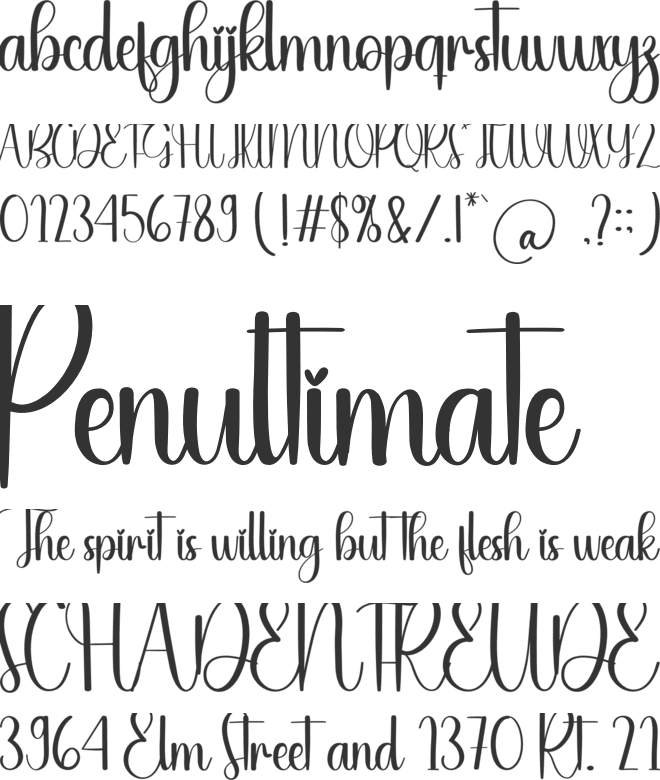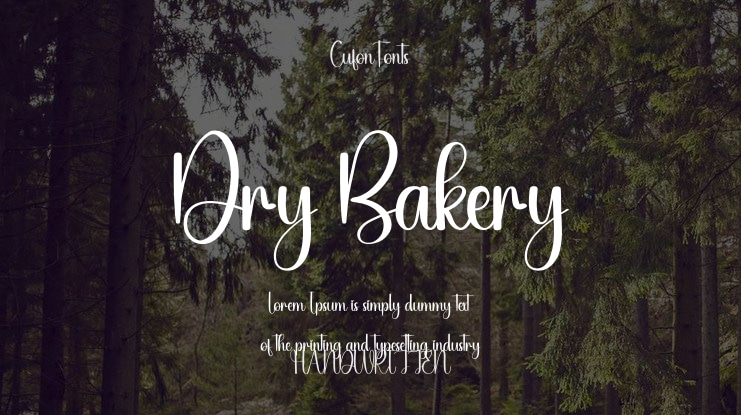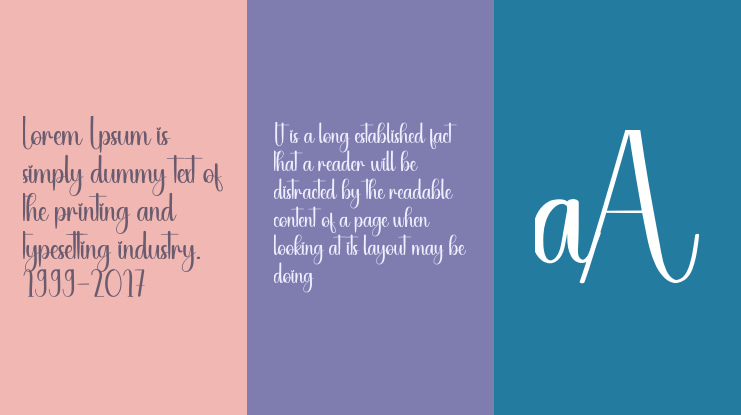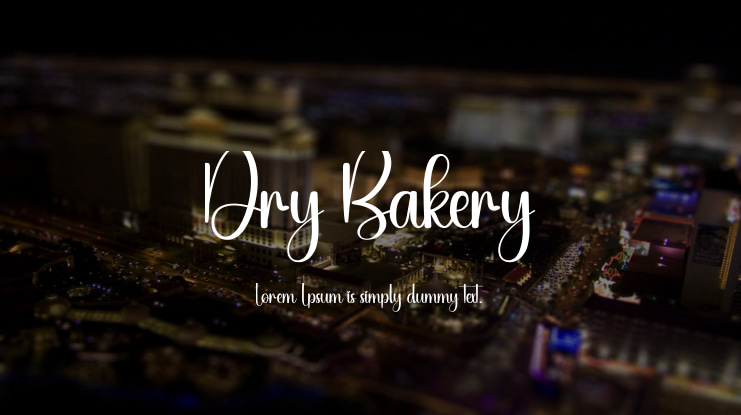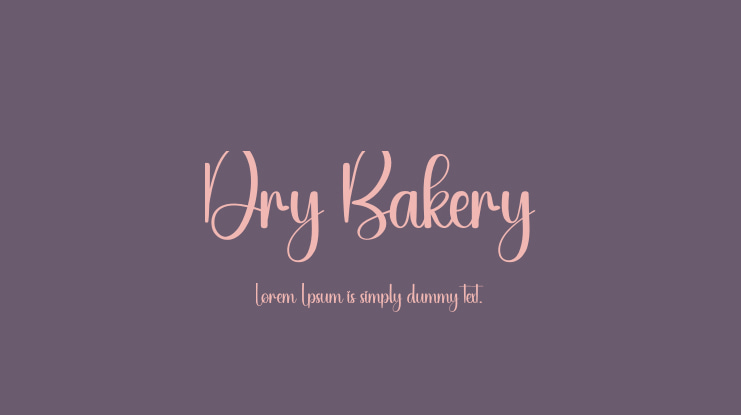
Dry Bakery Font
Discover our special and creative products designed to provide you with an extraordinary experience. Our products feature the latest stylish fonts, perfect for wall displays, wedding invitations, social media posts, logos, advertisements, product packaging, designs, labels, photography, watermarks, invitations, stationery, and any project that demands elegant handwriting.